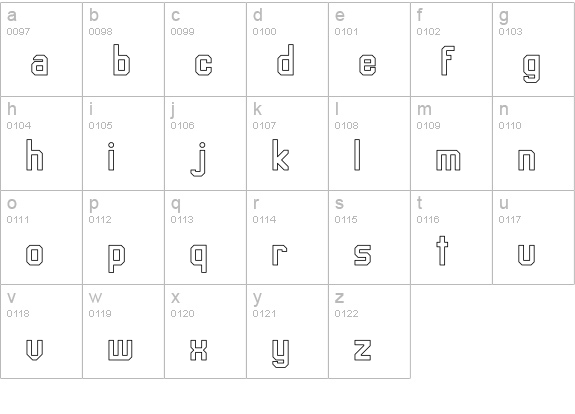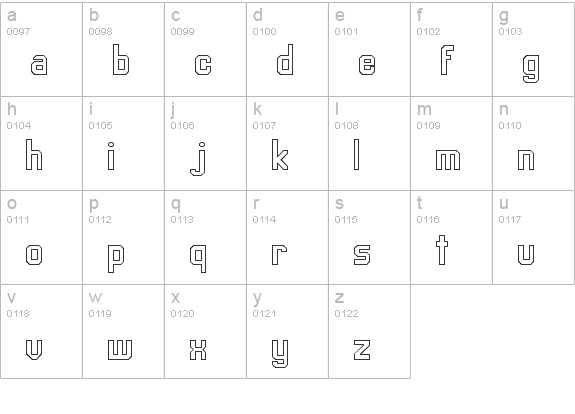
Upsilon Hollow font is a stunning display typeface that effortlessly captures attention with its unique and intricate design. This font exudes a sense of elegance and sophistication, making it the perfect choice for projects that require a touch of class and creativity. The Upsilon Hollow font features beautifully crafted letterforms that are meticulously detailed, showcasing its versatility and artistic flair. Each character is delicately outlined, creating a hollow effect that adds depth and dimension to any text. Whether used for headlines, logos, posters, or any other design project, this font is sure to make a lasting impression. What sets Upsilon Hollow font apart is its ability to seamlessly blend modern aesthetics with a timeless appeal. The sleek and contemporary design of this font makes it suitable for both digital and print applications. It is truly a versatile typeface that can enhance the visual impact of any design. One of the most appealing aspects of Upsilon Hollow font is that it is available for free download at FontsMarket.com. This means that designers, creatives, and enthusiasts alike can easily access and enjoy the beauty and elegance of this font without any cost. With its freely available nature, Upsilon Hollow font empowers designers to bring their visions to life without any limitations. So, if you are searching for a font that combines style, sophistication, and the freedom of being free, look no further than Upsilon Hollow font. Download it today from FontsMarket.com and elevate your design projects to new heights.